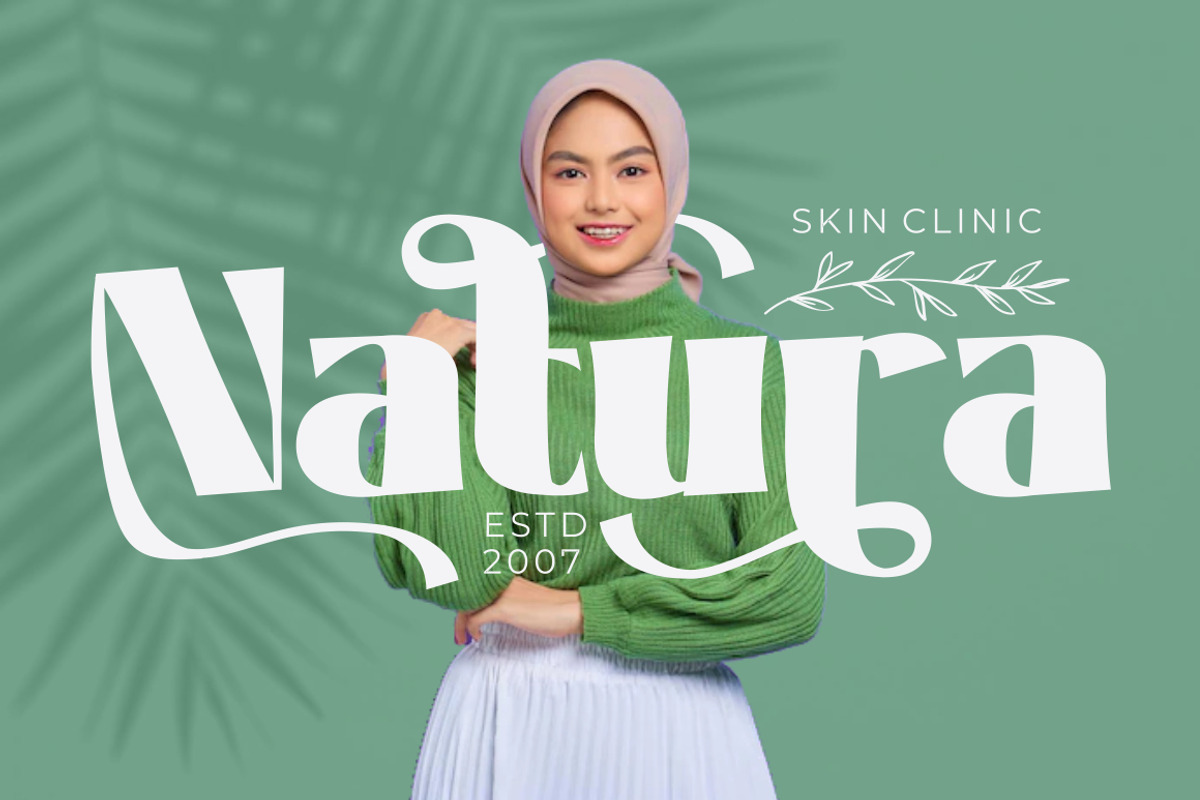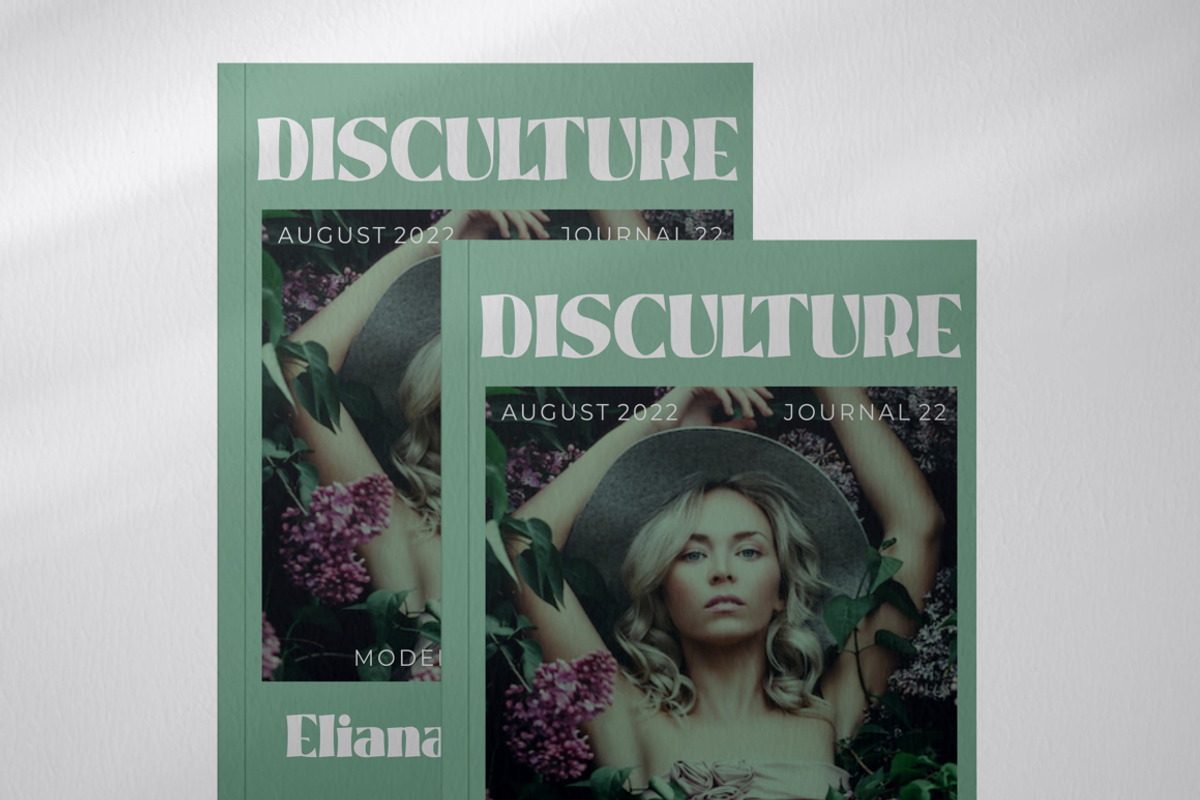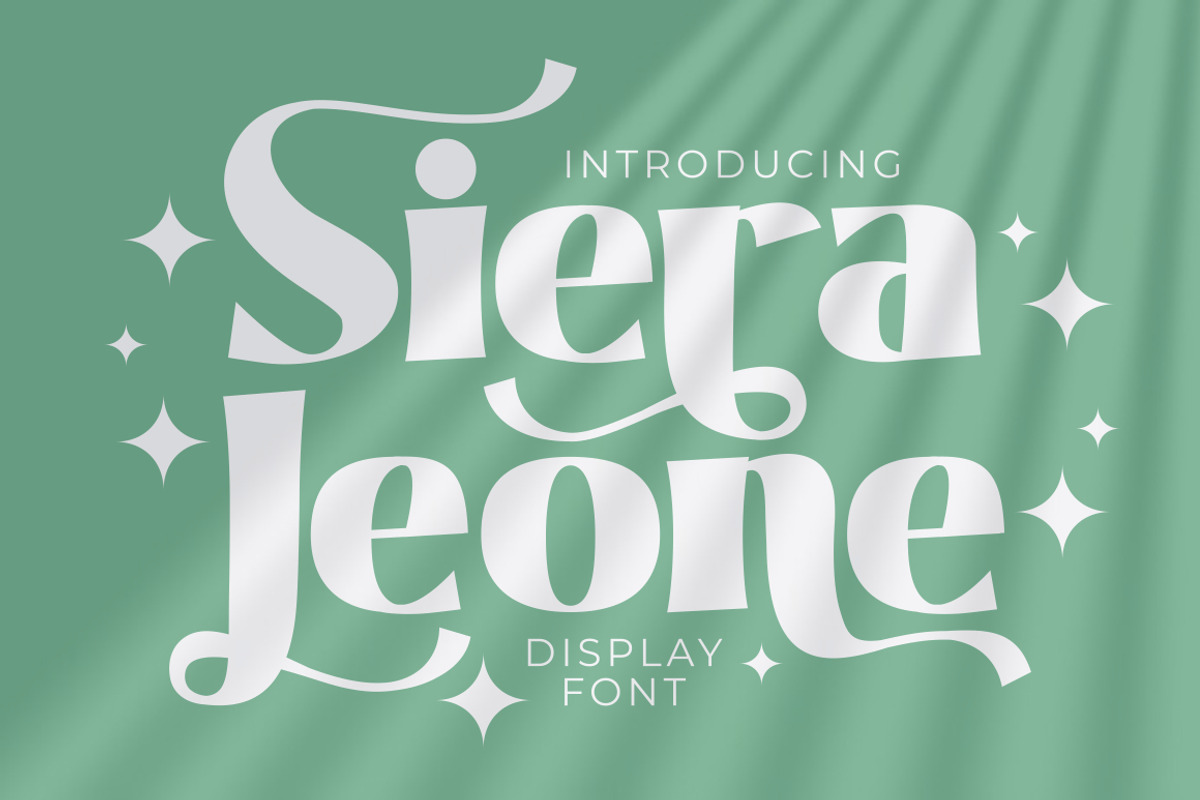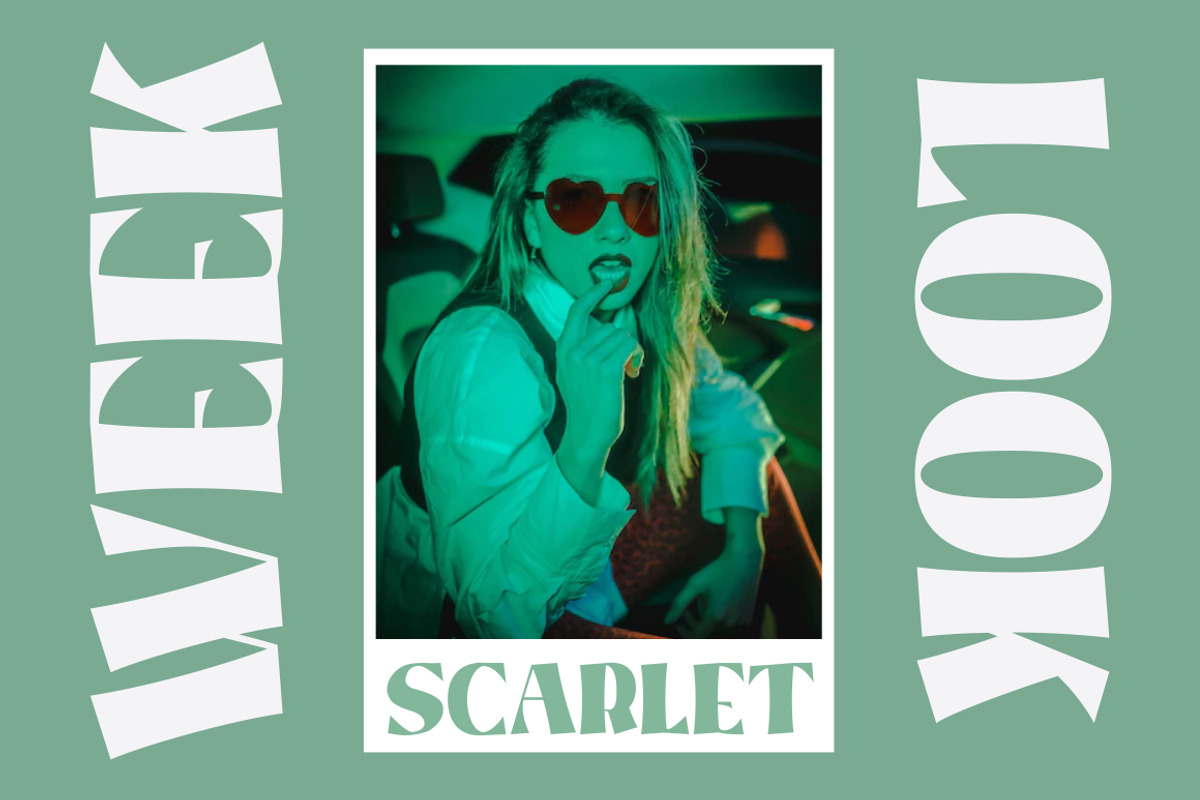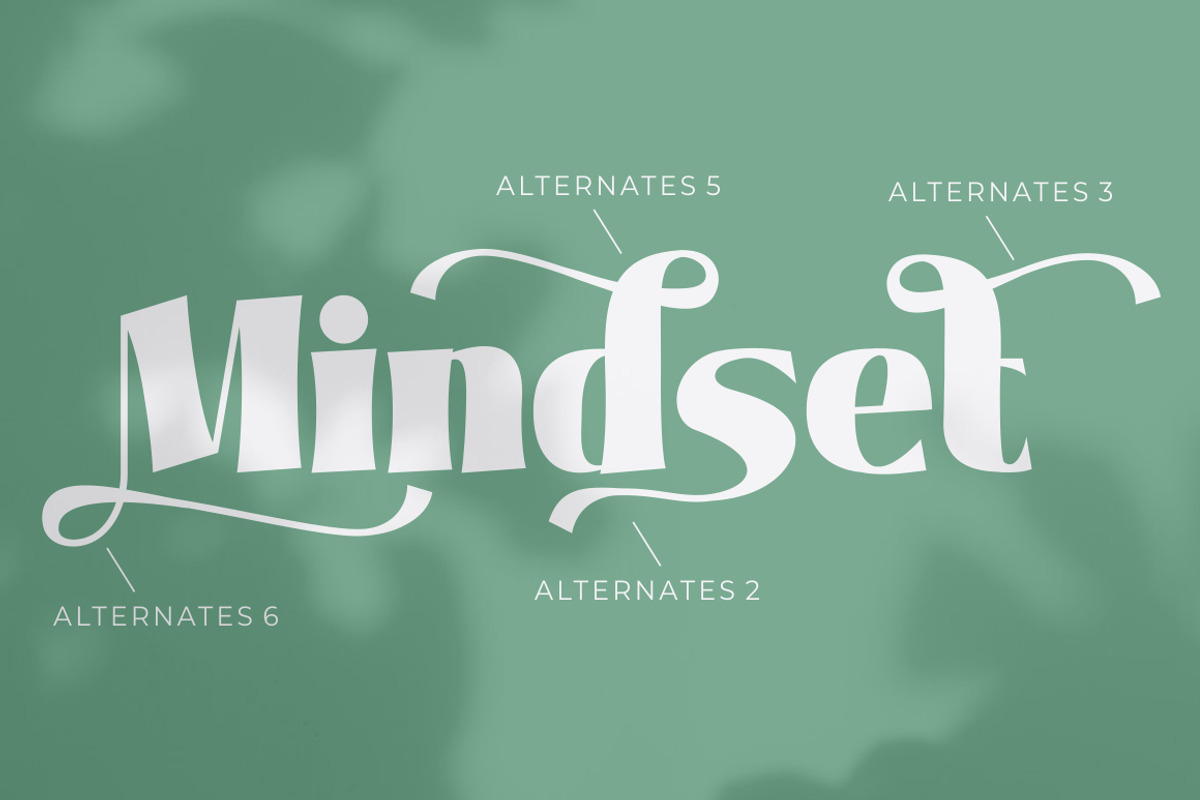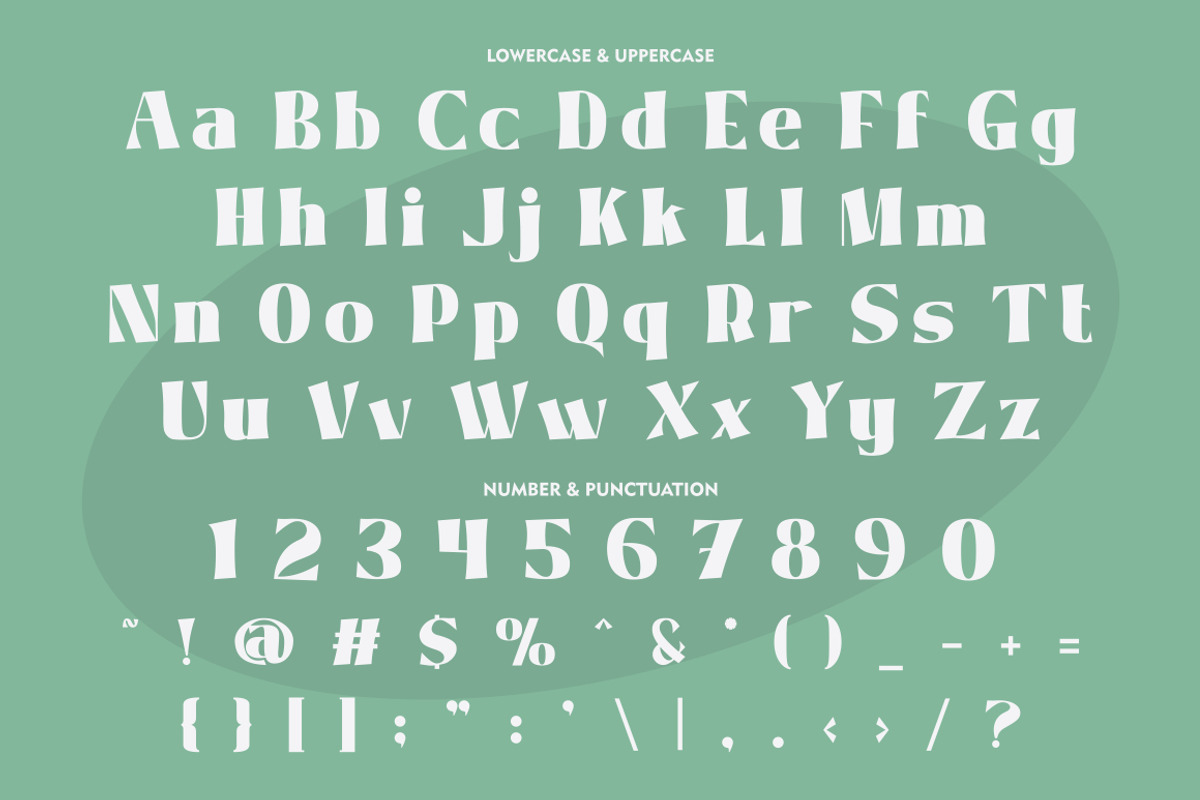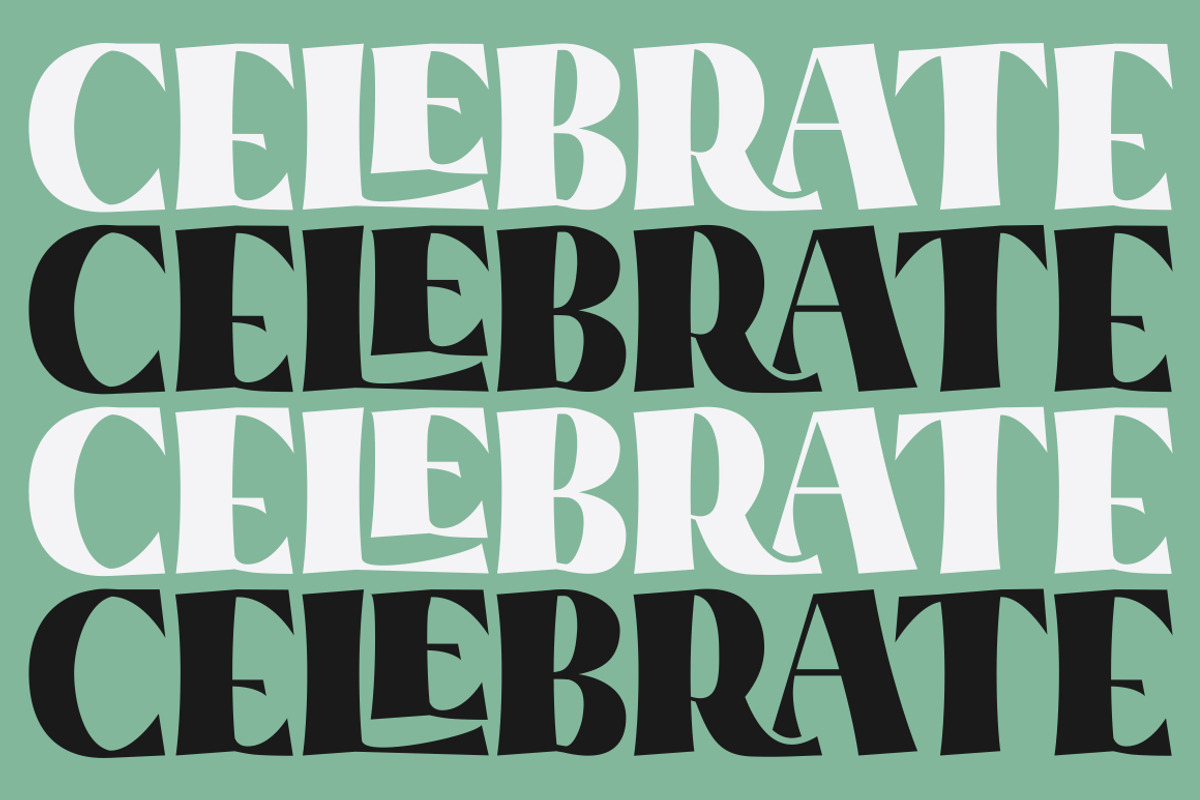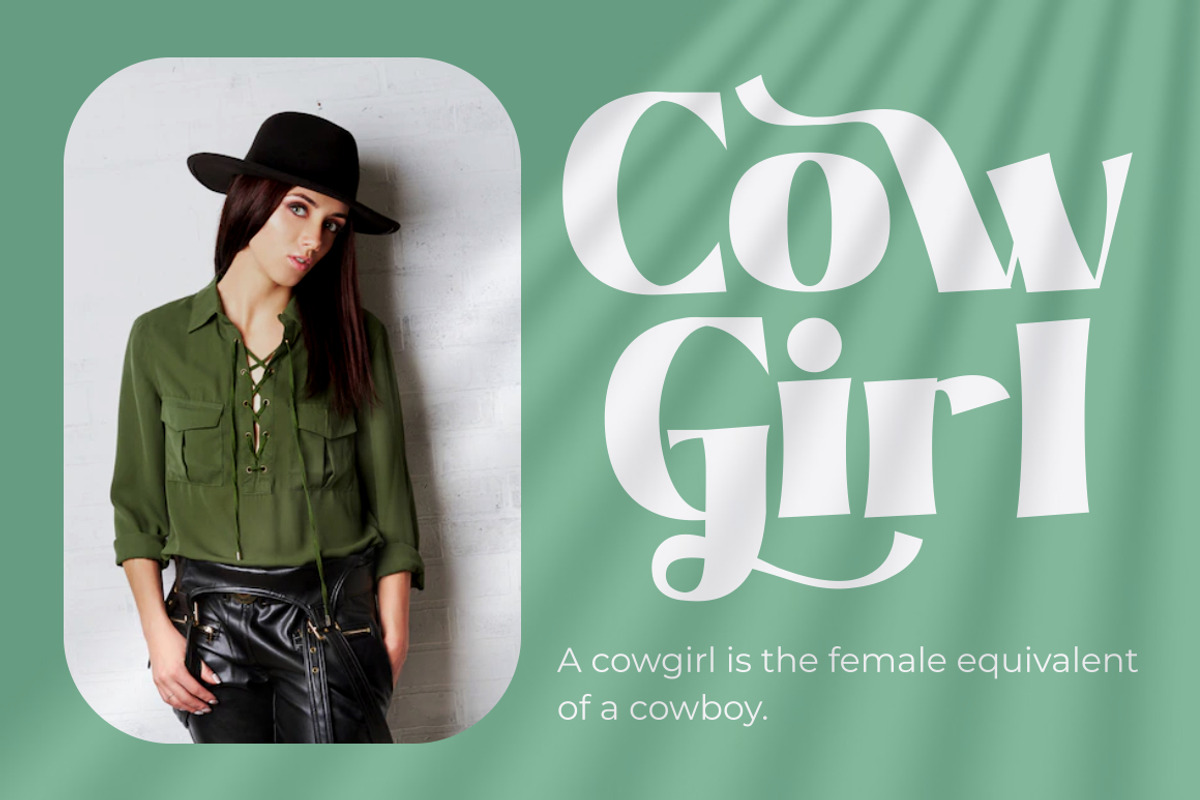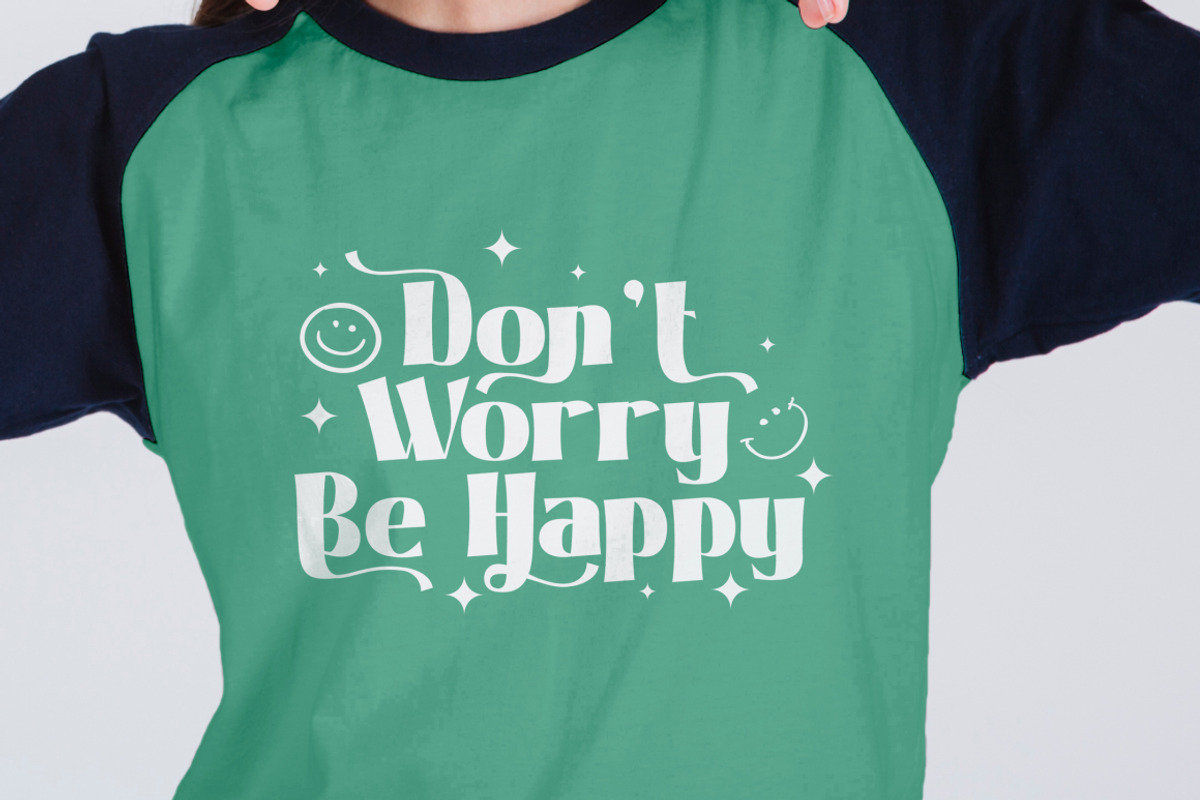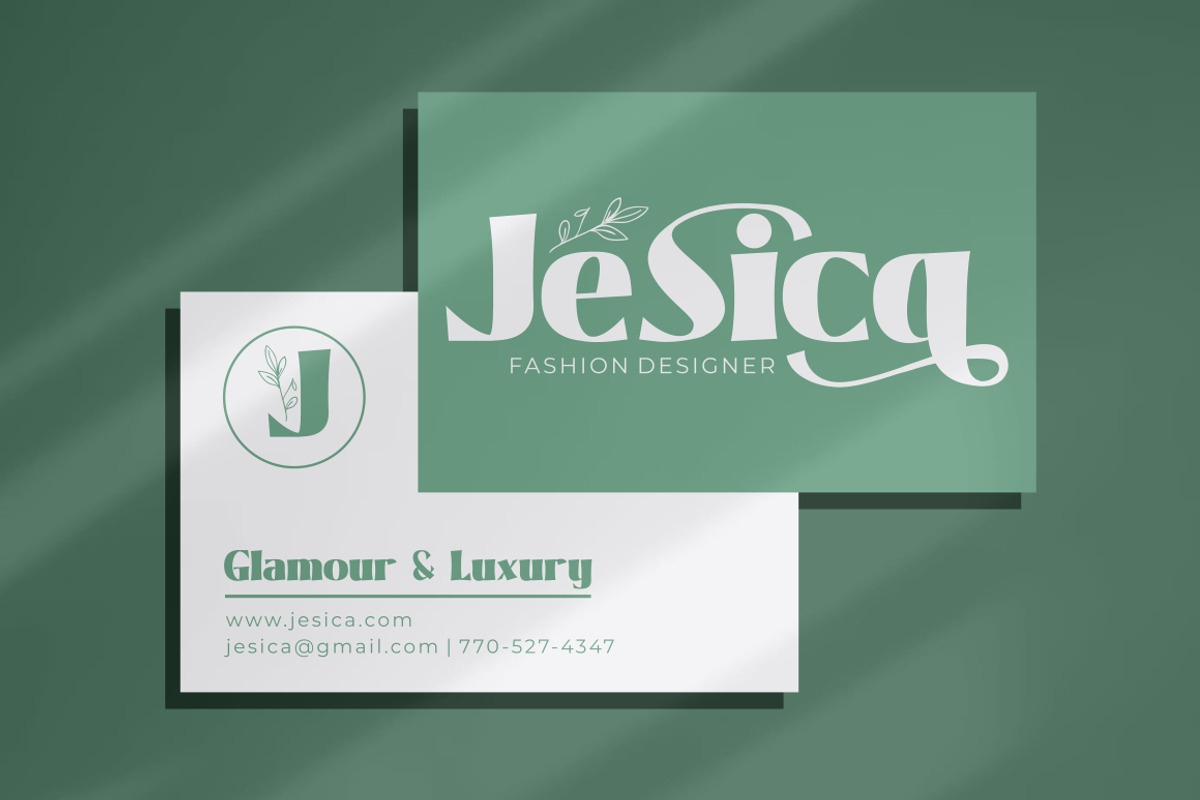
Siera Leone - Display Sans Font
Siera Leone - Display Font
Siera Leone - Display Font. Siera Leone is a super unique modern display typeface. The classic, fun and trendy impression is very visible. But in Siera Leone font I combine several variations such as the ligature. It makes this font even more unique and different. Siera Leone font inspired by elegant typeface and posters with display themes. Siera Leone is also great for any kind of display purpose from album, cover,poster, label, tshirt, apparel, signage, quote, logo, greeting card,logotype and many more. Siera Leone is also support multi language.
- Opentype (Alternates And Ligatures)
- Number, Punctuation And Symbols
- Multilanguage Support.